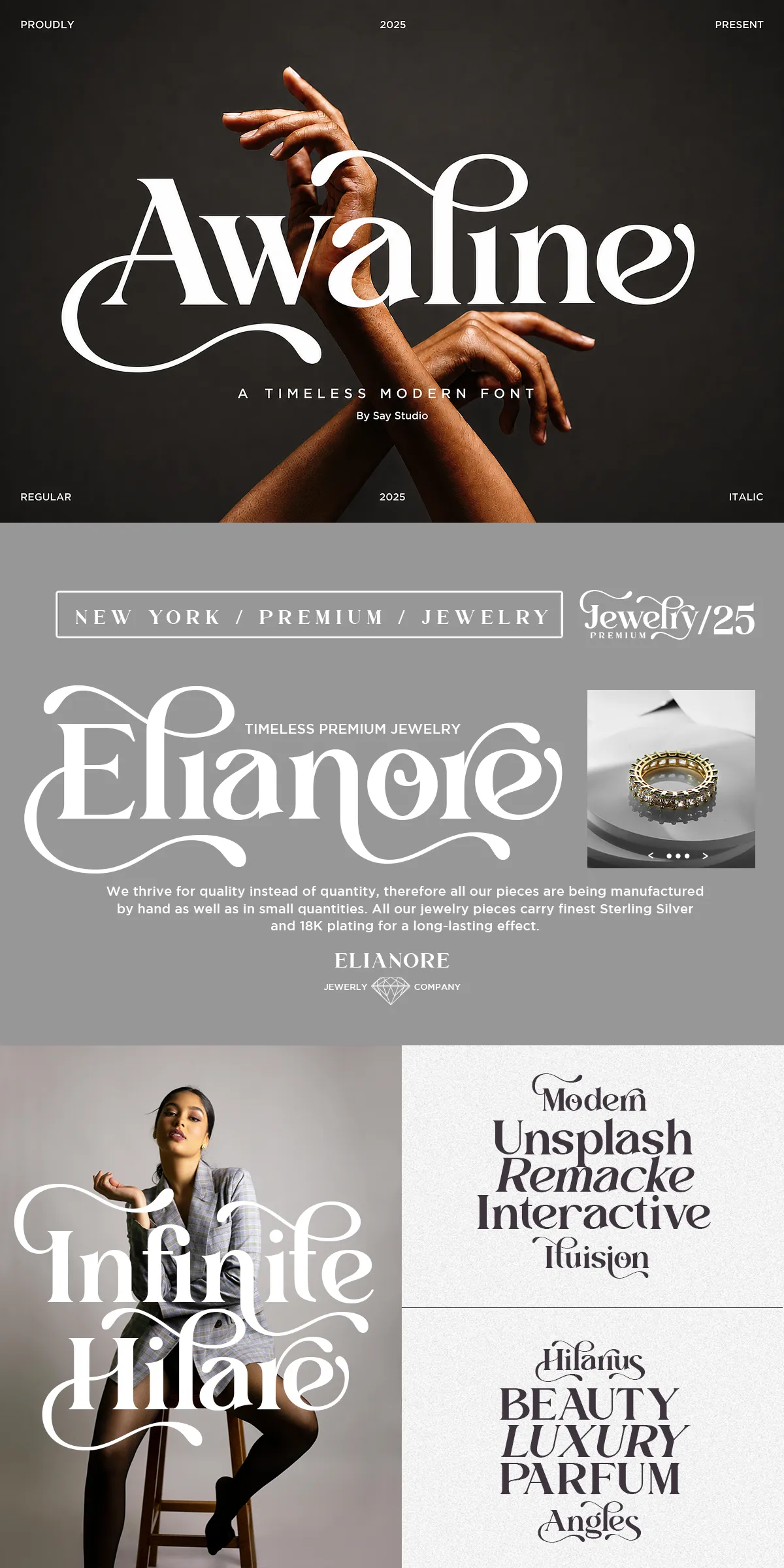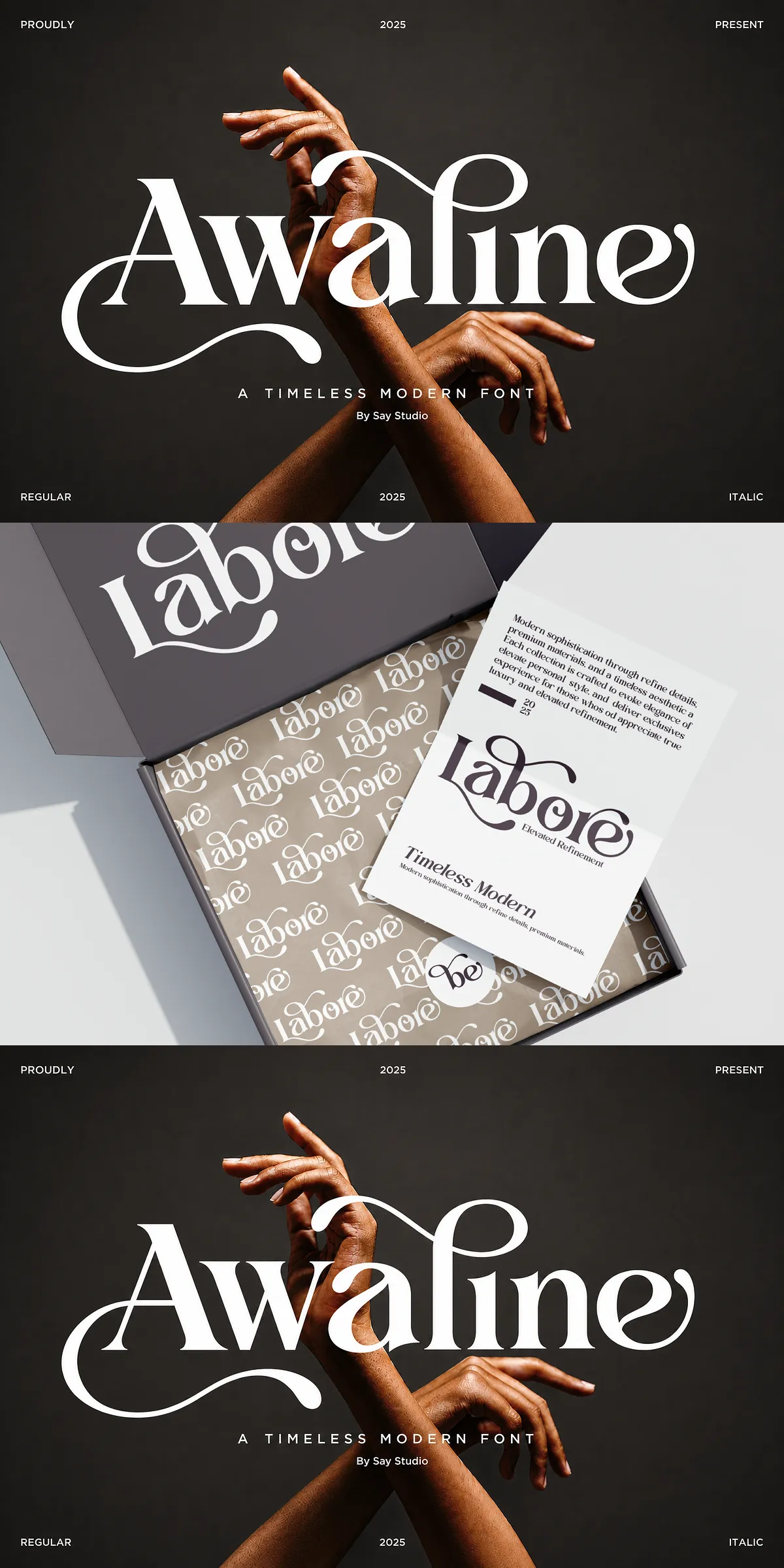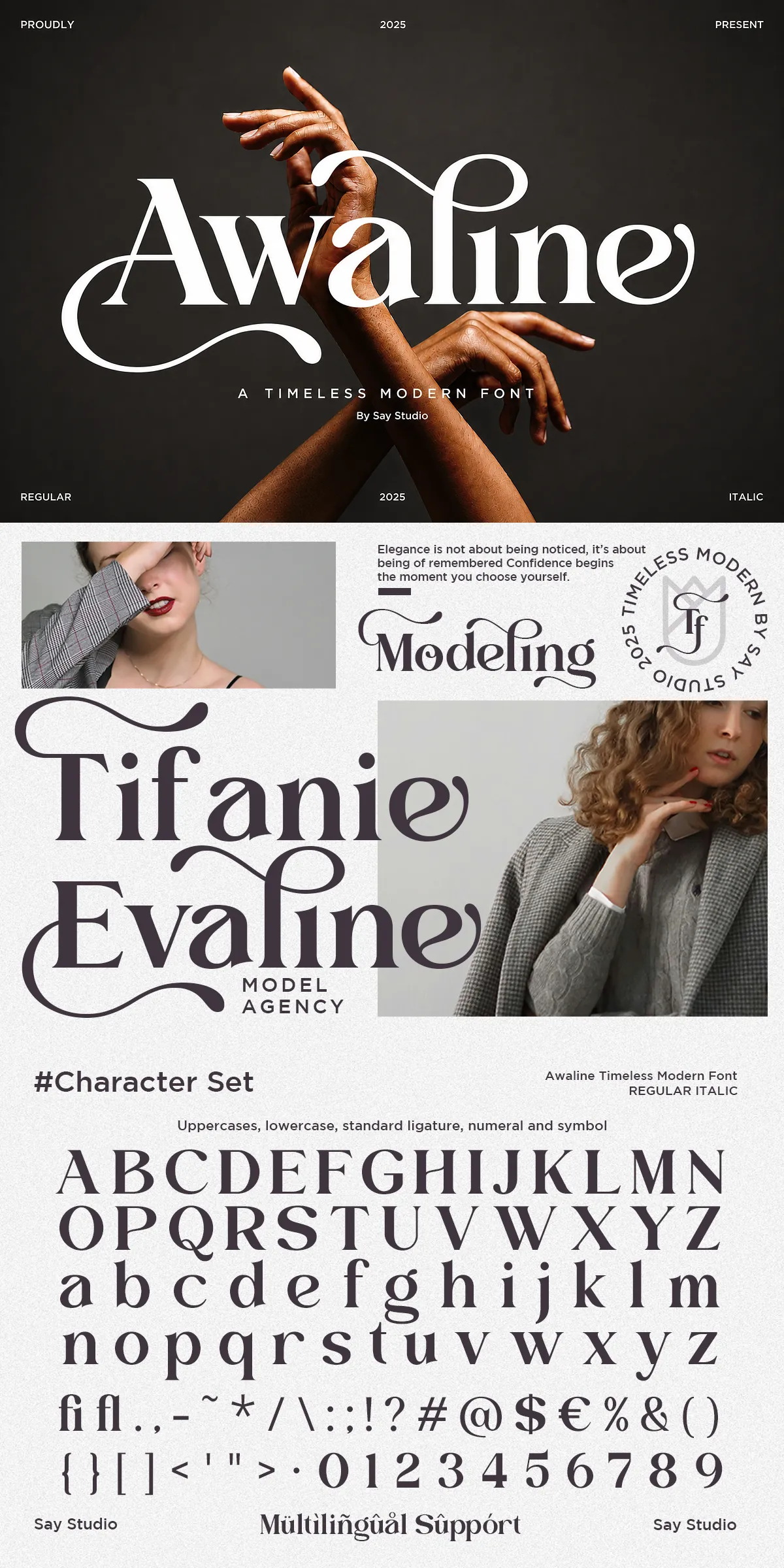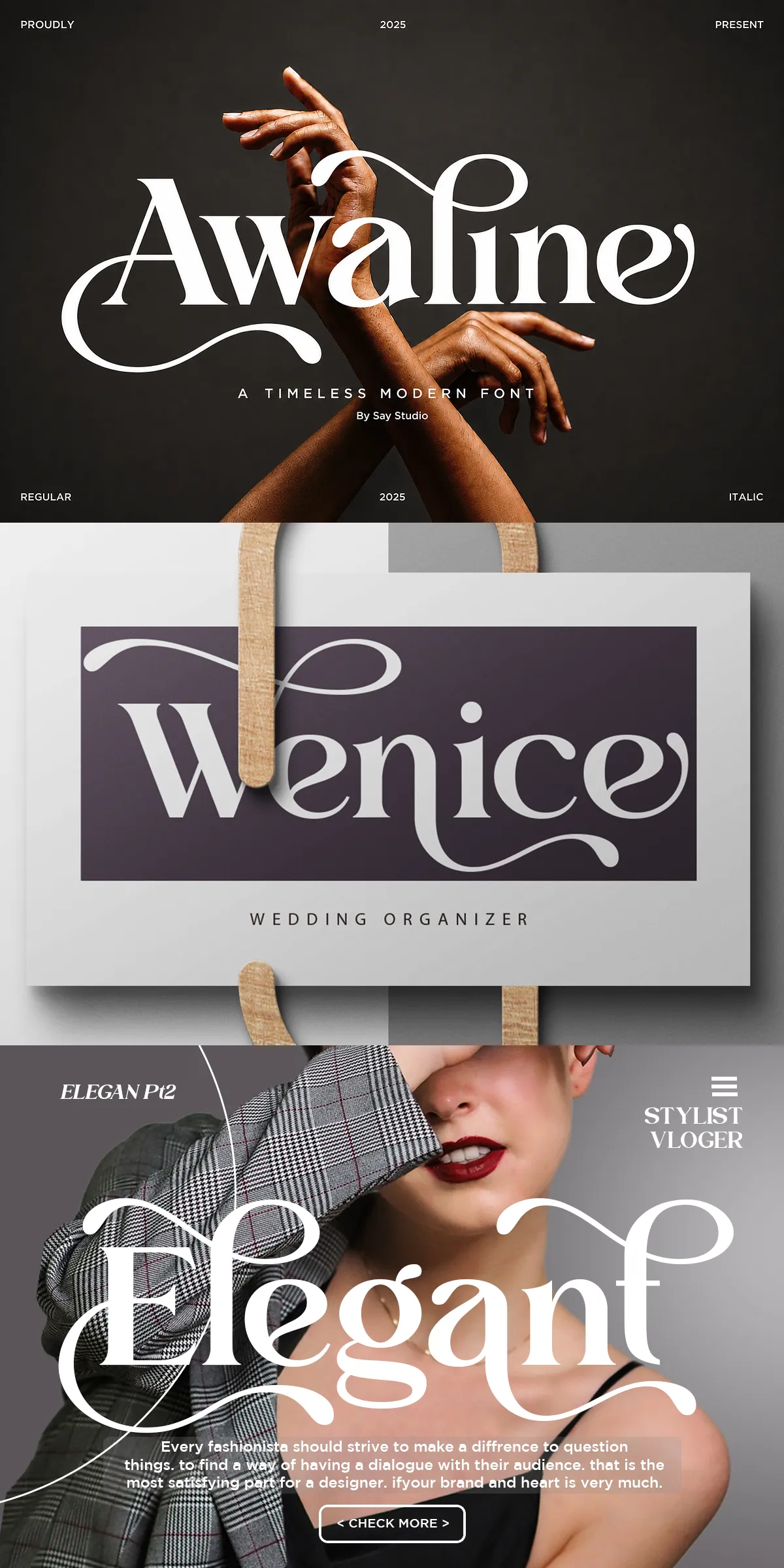
Luxury Wedding Serif Font – Awaline
Awaline is a luxury modern serif that blends timeless elegance with contemporary sophistication. Crafted with refined contrast, carefully shaped terminals, and graceful swashes, Awaline gives designers a typographic voice that reads as confident, polished, and expressive. The family brings premium character to any project that requires an upscale visual identity, from fashion branding and jewelry packaging to editorial spreads and wedding invitations.
Why Awaline Elevates Premium Brand Identity Across Projects
Awaline elevates brand identity by offering visually striking letterforms that retain readability at multiple scales. Strong vertical stress and subtle contrast make headlines and logos feel authoritative, while the included italics and stylistic alternates introduce decorative finishes without sacrificing clarity. Use Awaline to project quality, sophistication, and distinction — qualities that build trust and recognition for luxury products and services.
Font Features And Technical Specifications That Matter
• Styles included: Regular and Italic styles for flexible pairing and expressive typographic rhythm.
• Alternates and swashes: Stylistic alternates and swash characters provide decorative options for bespoke logotypes and headline treatments.
• Character set: Full uppercase and lowercase alphabets with numerals, punctuation, and essential symbols.
• Language support: Multilanguage glyphs ensure Awaline works across Latin-based languages for international projects.
Recommended Uses And Design Applications For Awaline
Awaline performs strongly wherever elevated typographic tone is required. Apply the font to fashion and beauty branding, luxury product packaging, boutique identities, and premium marketing materials. It also shines in editorial design: cover headlines, feature spreads, and pull quotes gain instant polish. Wedding stationery benefits from Awaline’s refined swashes and the script-like flourish of alternates, while cosmetic and jewelry packaging uses the font’s contrast and proportion to suggest value and craftsmanship.
Design Workflow Tips To Maximize Awaline’s Impact
• Pairing: Pair Awaline with a clean sans-serif for body copy to balance ornament with legibility. Use tighter tracking for display headlines and looser tracking in longwordmarks for elegance.
• Hierarchy: Use heavier sizes and all-caps for strong titles; employ italics and swashes for accents, subheads, or product names.
• Texture and color: Combine Awaline with subtle textures, metallic foils, or subdued color palettes to reinforce a premium look.
• Responsive use: Test letterspacing and weight at small sizes for web and mobile to maintain readability while preserving the typeface’s character.